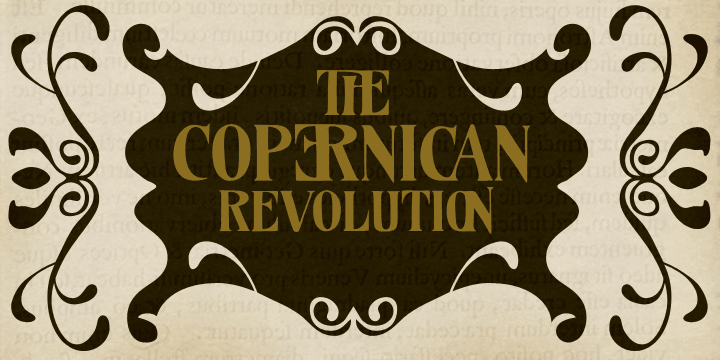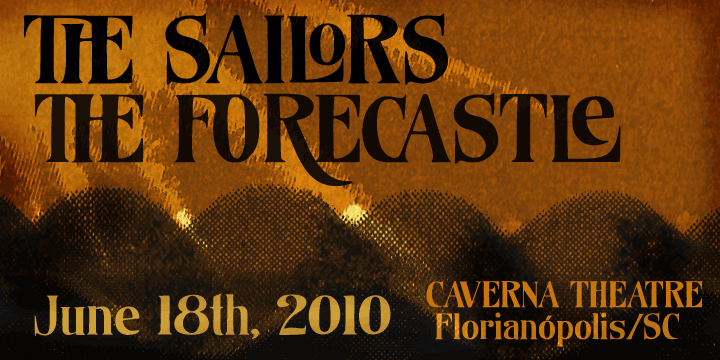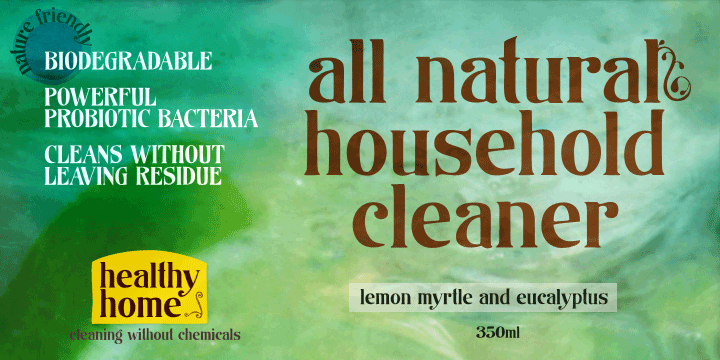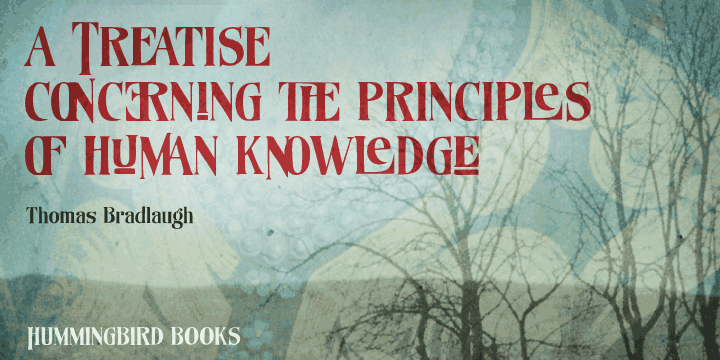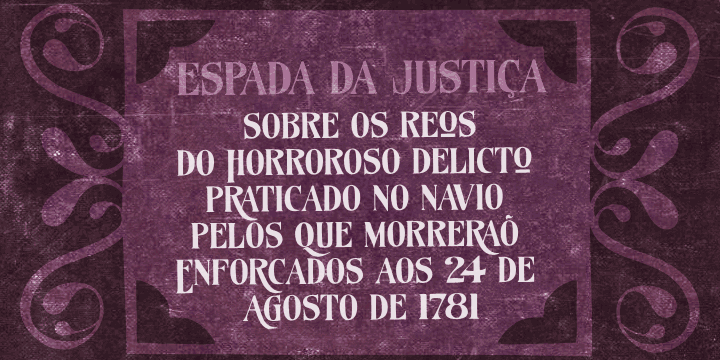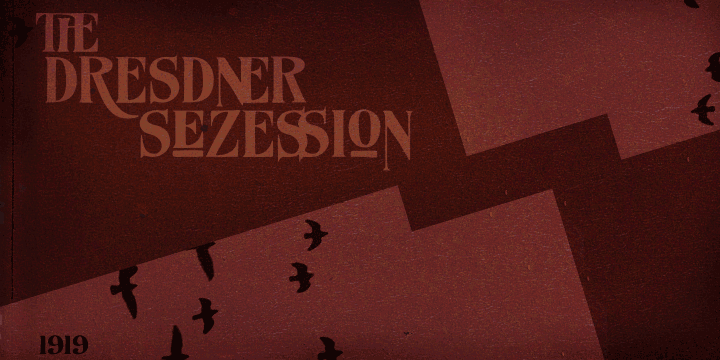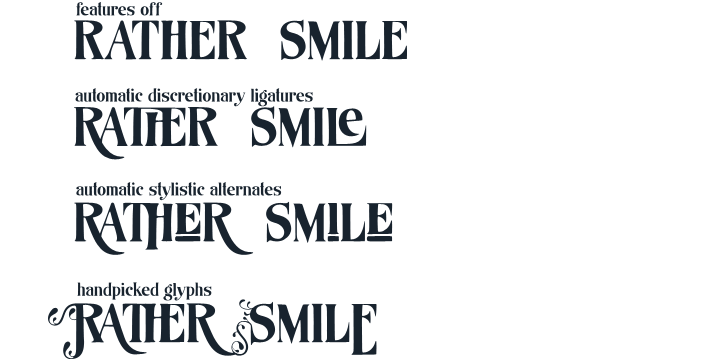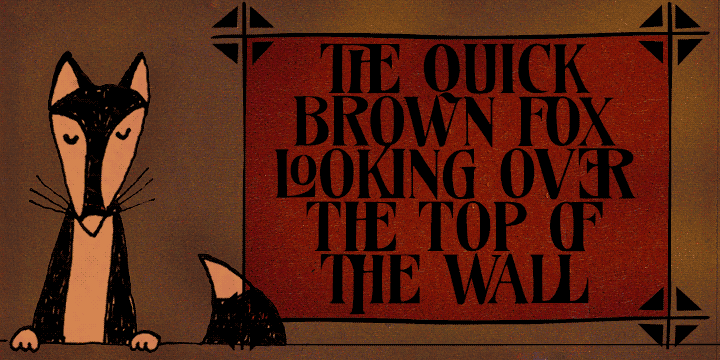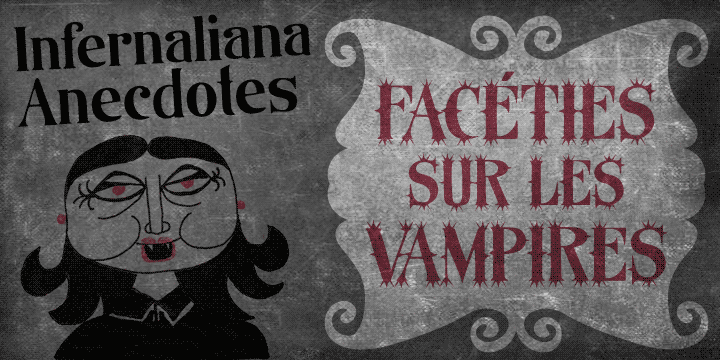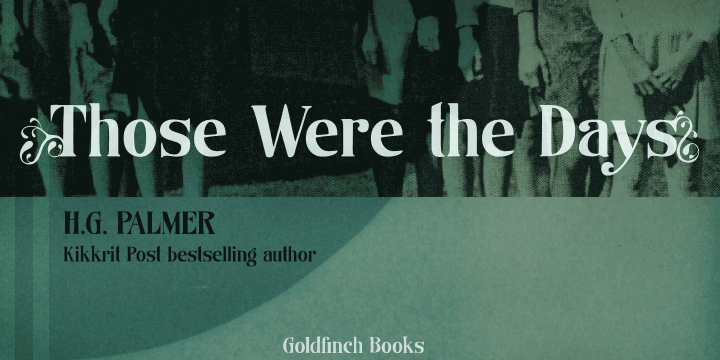
Organically is a dingbat, display and display serif font family. This typeface has three styles and was published by PintassilgoPrints.
Friendly and generous, this is an organically grown display typeface. Its original handcrafted shapes have been significantly polished, without losing its old-fashioned charm. The versatile regular cut comes equipped with a wealth of decorative OpenType features such as swashes, majuscule discretionary ligatures and stylistic alternates.
The family also comes with a stylish set of useful ornaments and a very eye-catching spiky version.
All hand made, with care.